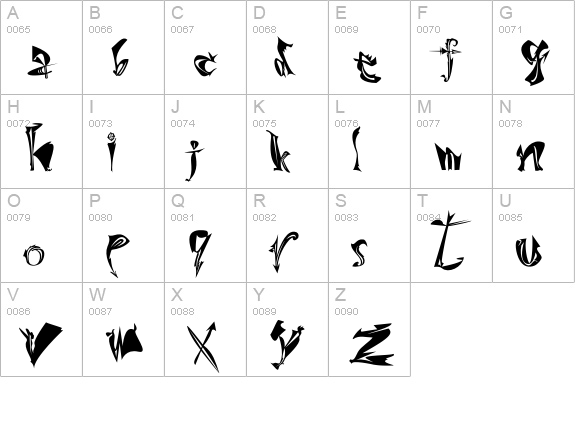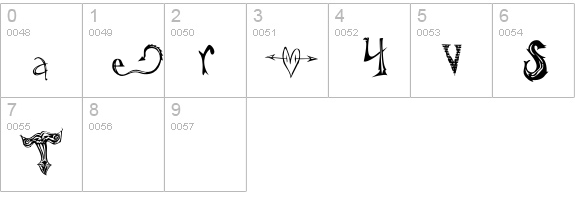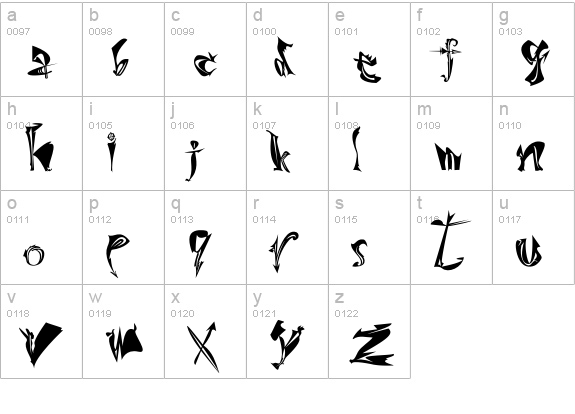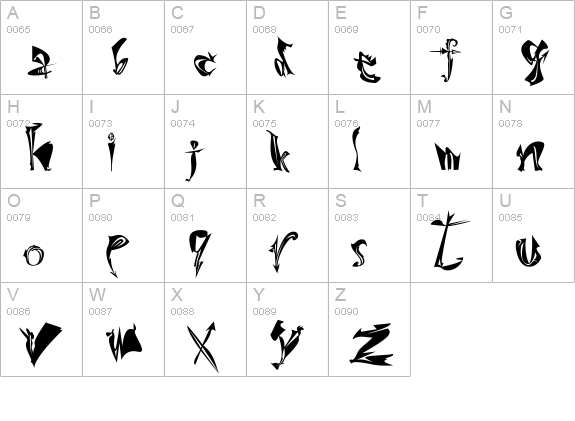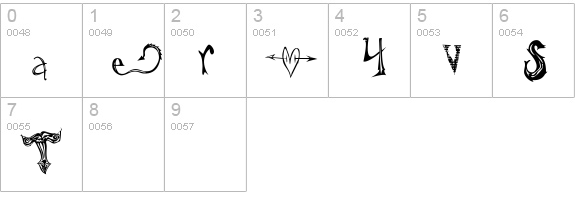
UckNPretty Font Details
Introducing UckNPretty font, a stunning typeface that effortlessly combines elegance and playfulness. With its unique and eye-catching design, UckNPretty is sure to capture attention and leave a lasting impression on any project. This versatile font is perfect for a wide range of applications, whether it be branding, logos, posters, invitations, or social media graphics. Its intricate details and smooth curves add a touch of sophistication, while its whimsical elements inject a sense of fun and creativity. UckNPretty font is not only visually appealing but also incredibly easy to use. Its well-crafted characters ensure legibility and readability, making it suitable for both headlines and body text. Whether you're a professional designer or just starting out, UckNPretty offers endless possibilities for your creative endeavors. And the best part? UckNPretty font is available for free! That's right, you can download this exceptional typeface at FontsMarket.com without spending a dime. We believe that everyone should have access to quality fonts, and UckNPretty exemplifies our commitment to providing exceptional resources for designers and creatives. So why wait? Elevate your designs with UckNPretty font and let your imagination run wild. Download it now for free at FontsMarket.com and bring your projects to life with this captivating and versatile typeface.